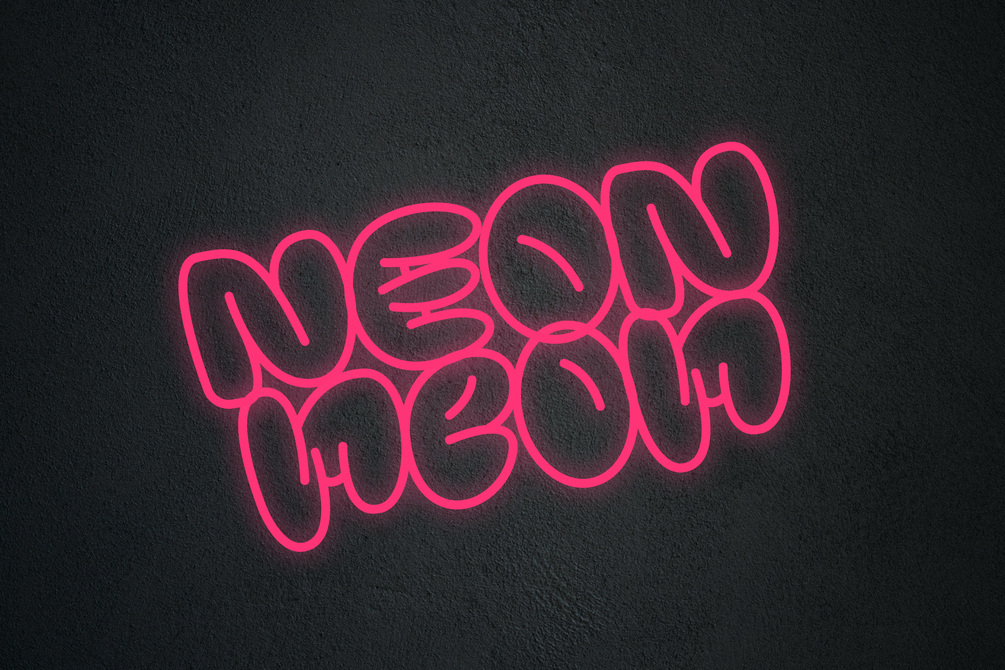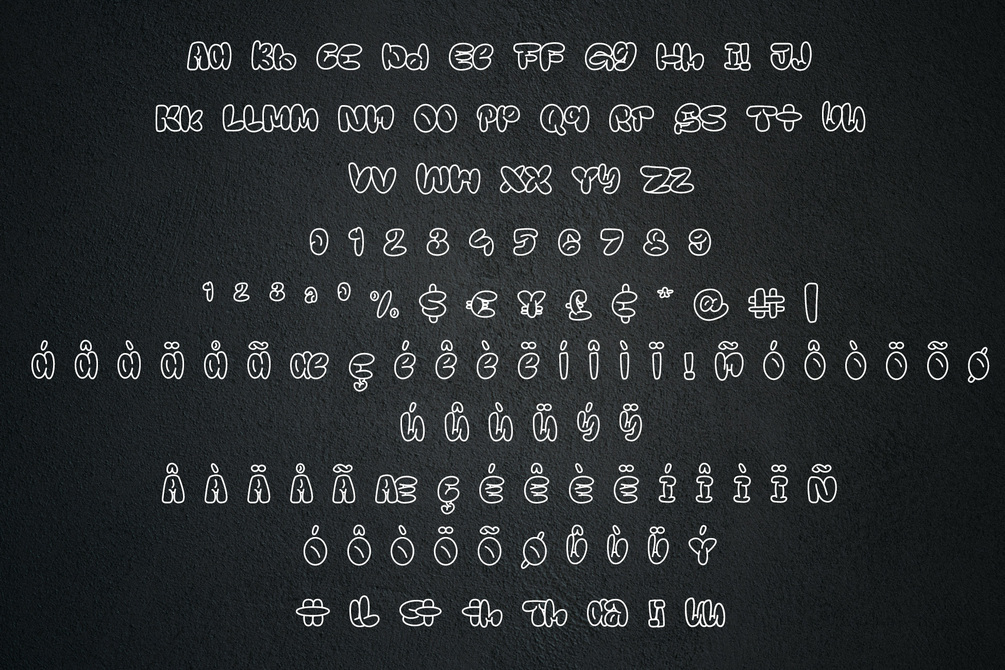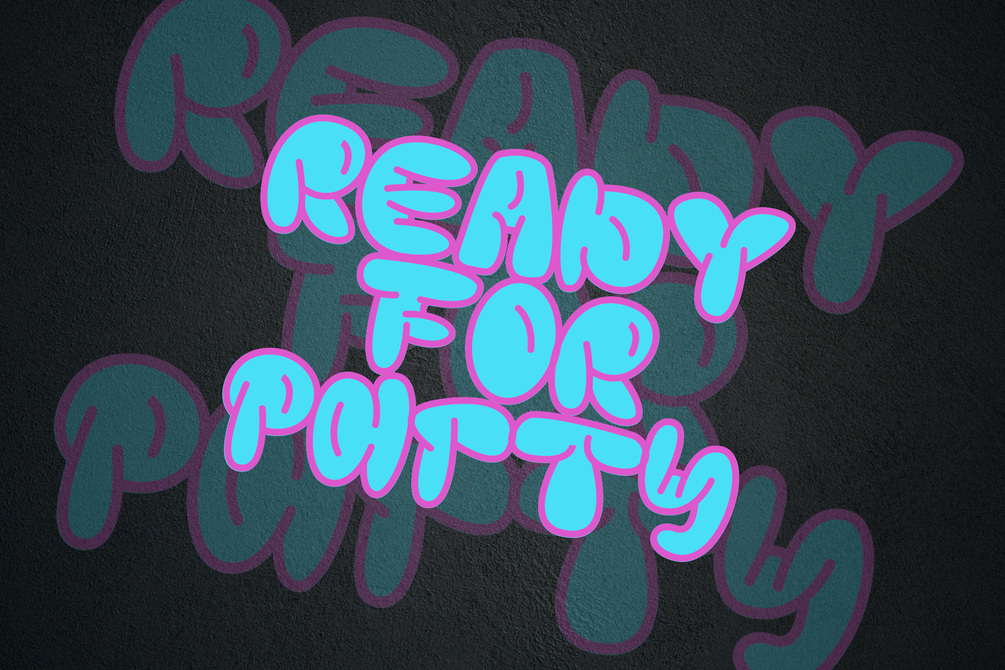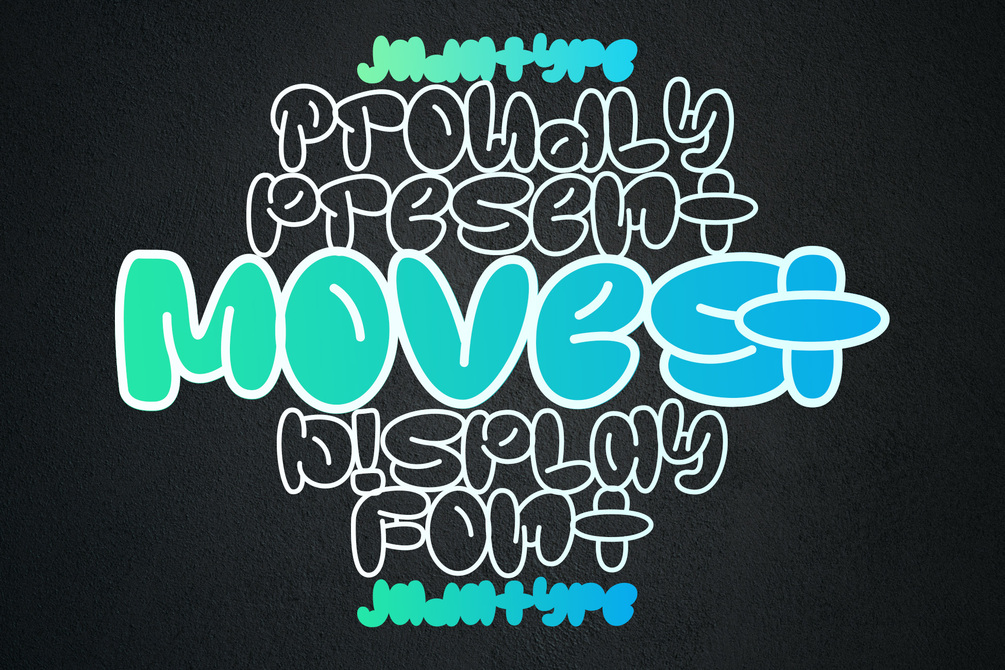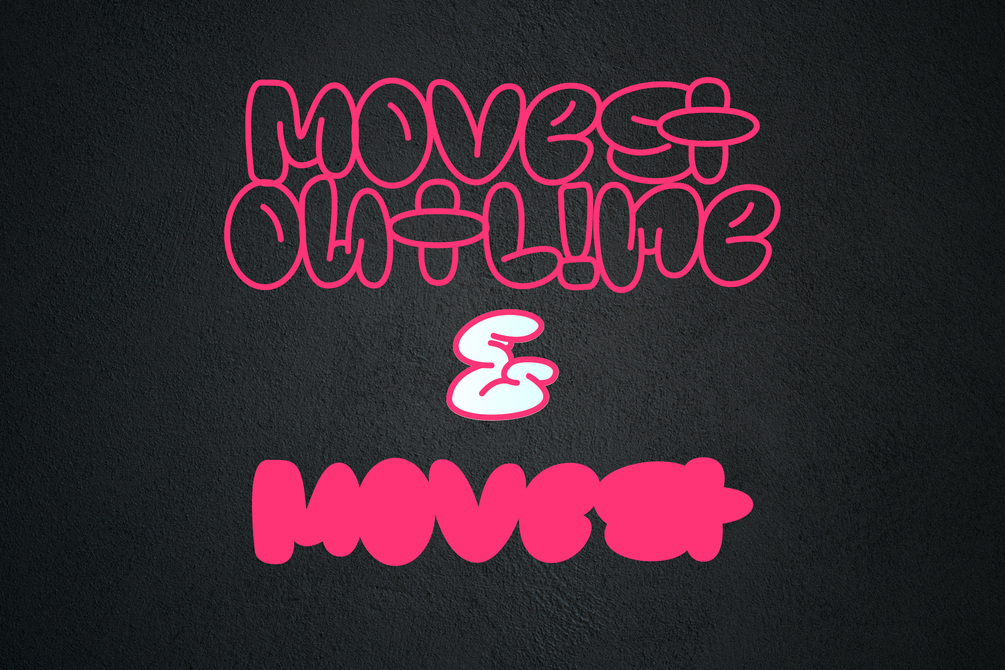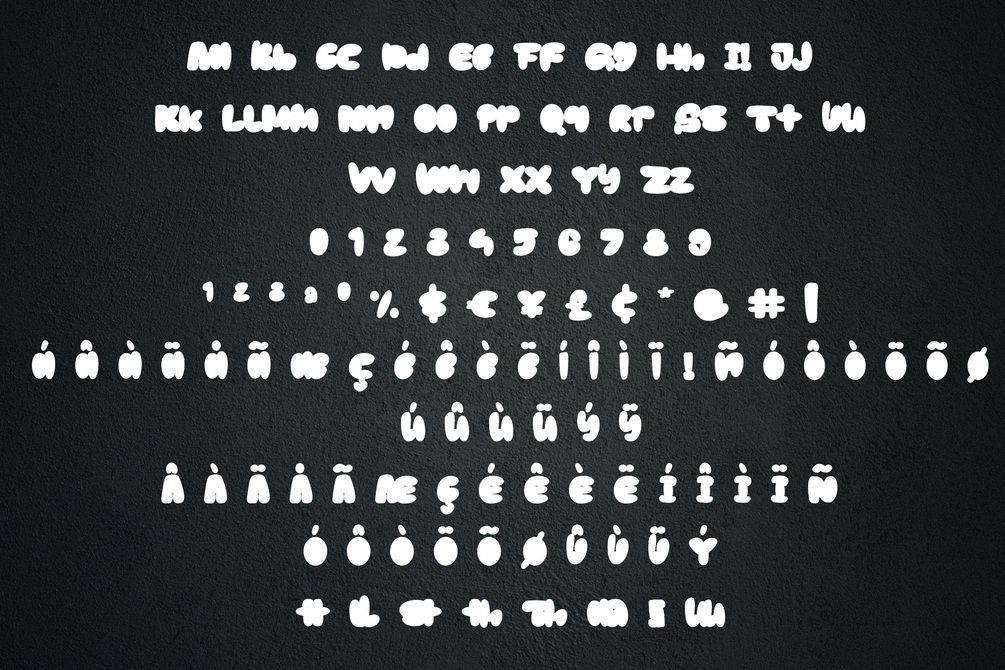
Movest Font
Movest is a display font that has a bubble style with fun graffiti's vibe. suitable for poster, branding, social media, products, advertisements, and so on. contains standard English letters, numbers, punctuation, and several accents that support multilingualism.
- Movest & Movest Outline